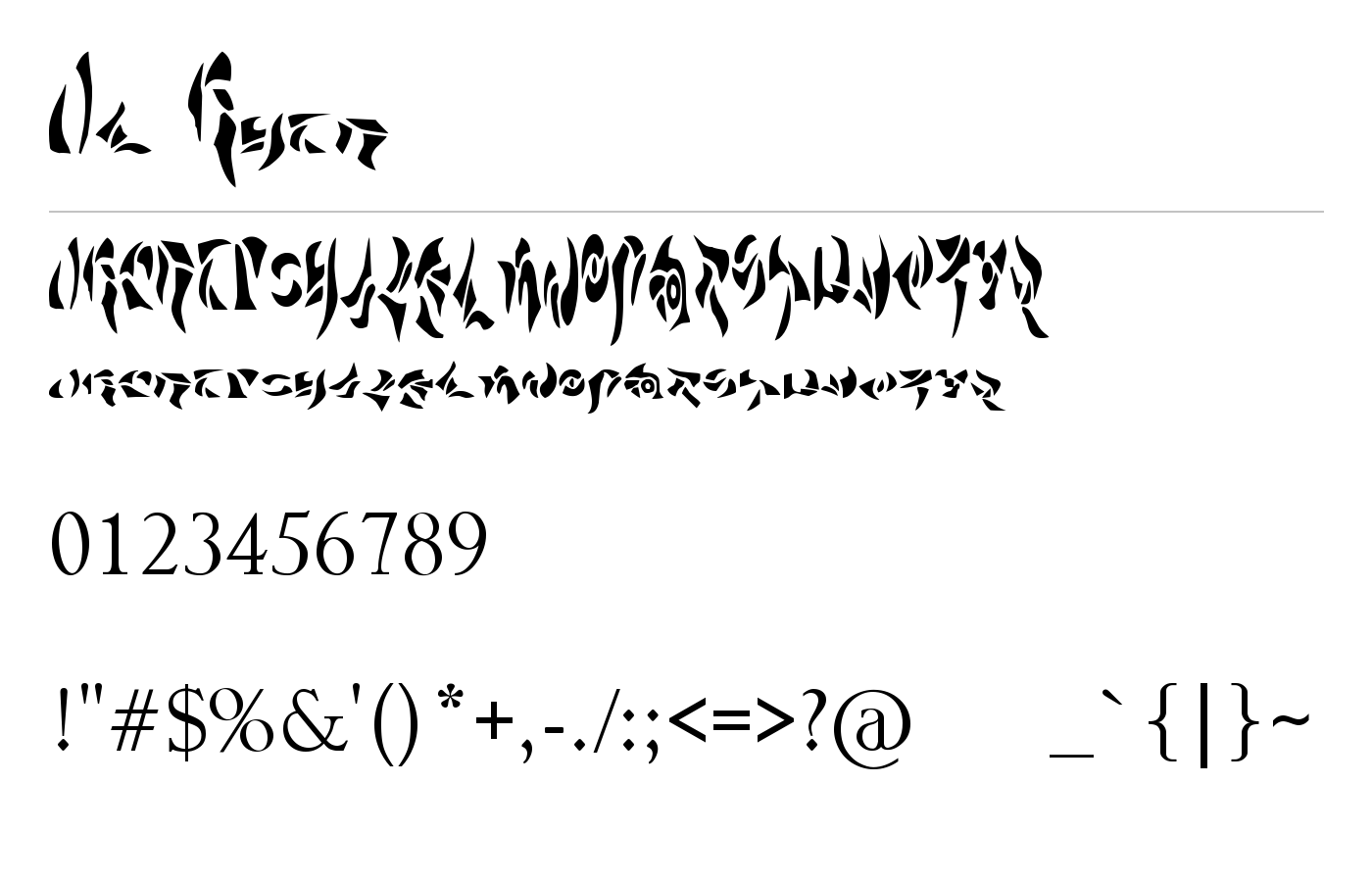
Al Bhed Font is a stylized, decorative typeface that features sharp, angular, and abstract letterforms reminiscent of a fictional script. Its unique, high-contrast shapes offer a mysterious and otherworldly feel, making it ideal for fantasy, sci-fi, or gaming-themed designs that require a distinct and unconventional look. This font works best in creative logos, titles, and decorative use where an exotic or cryptic atmosphere is desired.
Al Bhed Font
About Al Bhed Font